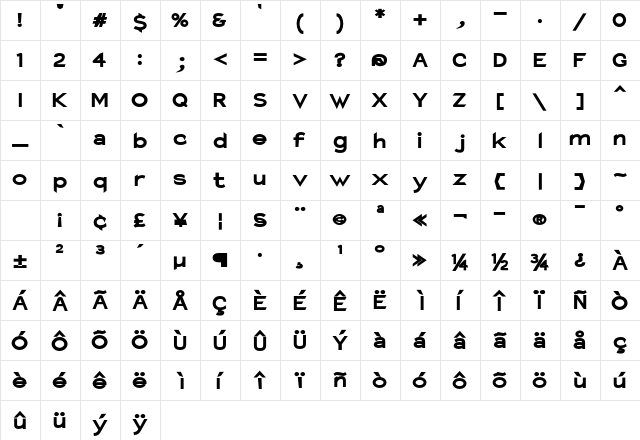
Charger Hemi
| Foundry | Cannot Into Space Fonts |
| Designer | Jasper |
Design Context for Charger Typeface
Charger is a composed and adaptable typeface that performs quietly and consistently across a wide range of design contexts.